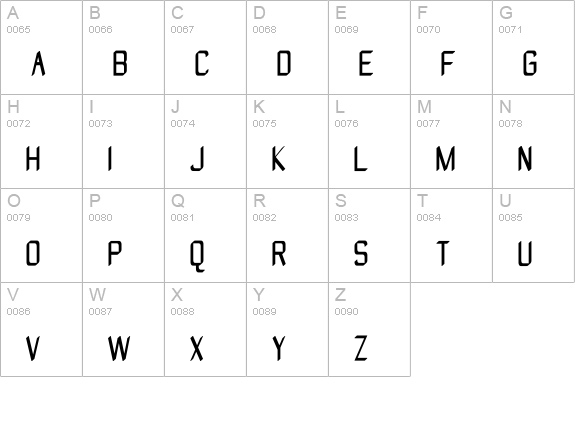
ZyphyteCondense Font Details
ZyphyteCondense font is a sleek and modern typeface that exudes sophistication and elegance. Its condensed design allows for optimal space utilization without sacrificing readability, making it perfect for various design projects. The clean lines and sharp edges of ZyphyteCondense give it a contemporary feel that is versatile and eye-catching. The best part about ZyphyteCondense font is that it is completely free to download at FontsMarket.com. Whether you're working on a branding project, creating stunning graphics, or designing a sleek website, ZyphyteCondense font is sure to elevate your work to the next level. Don't miss out on this stylish and functional font that is just a click away for you to download and use in your creative endeavors.